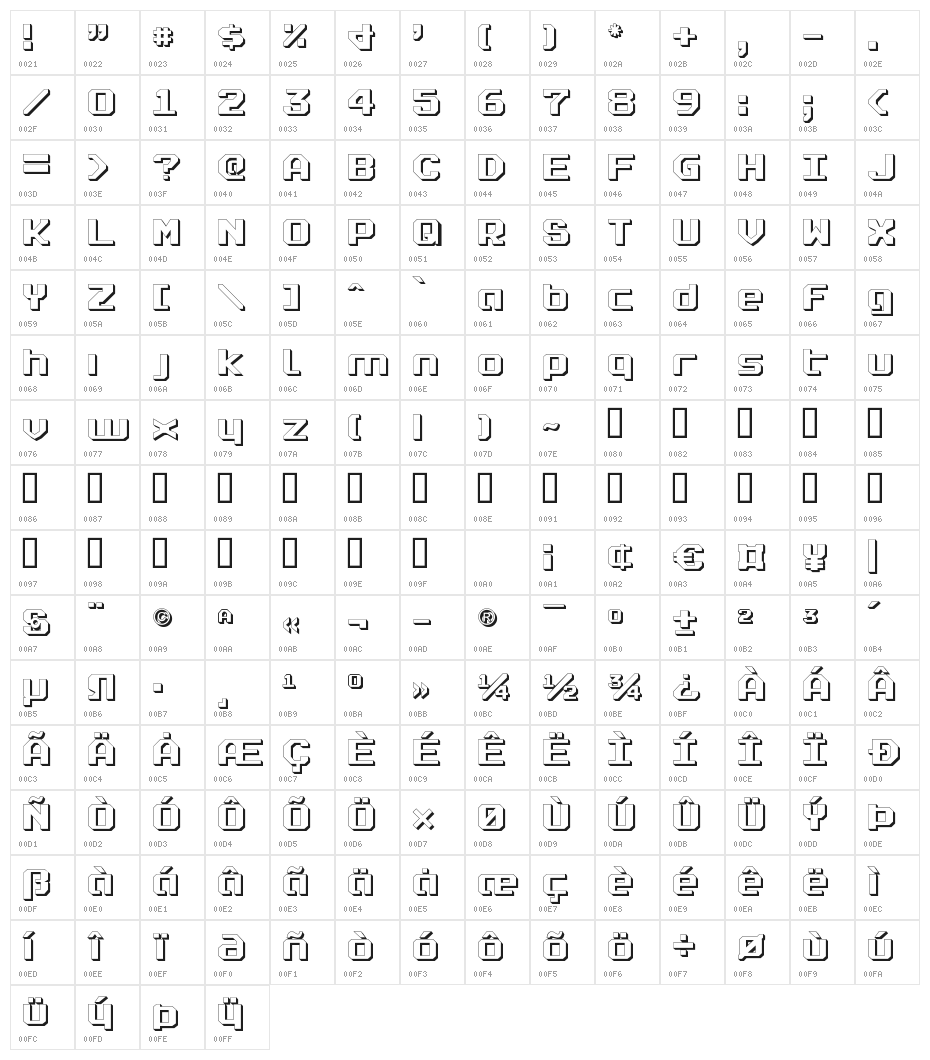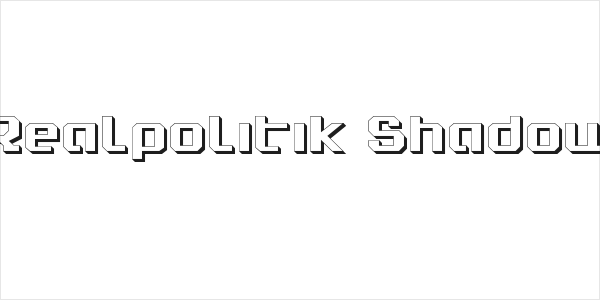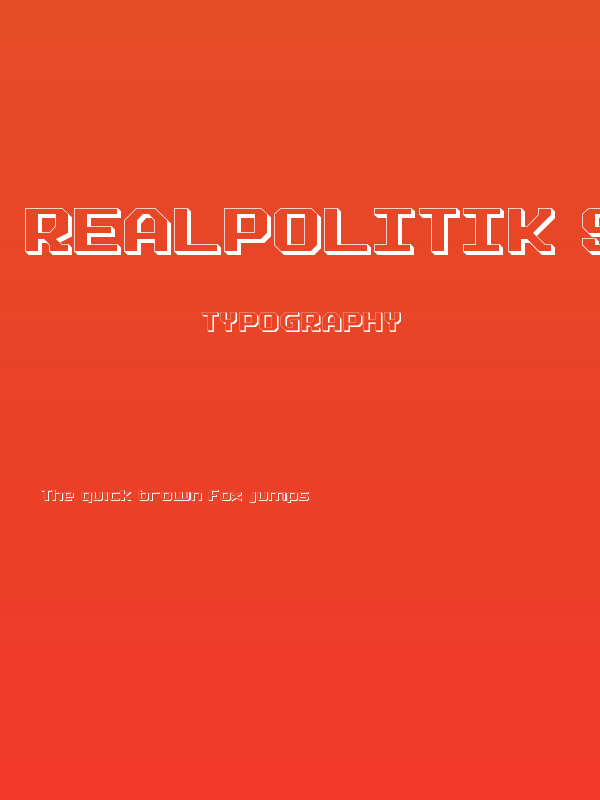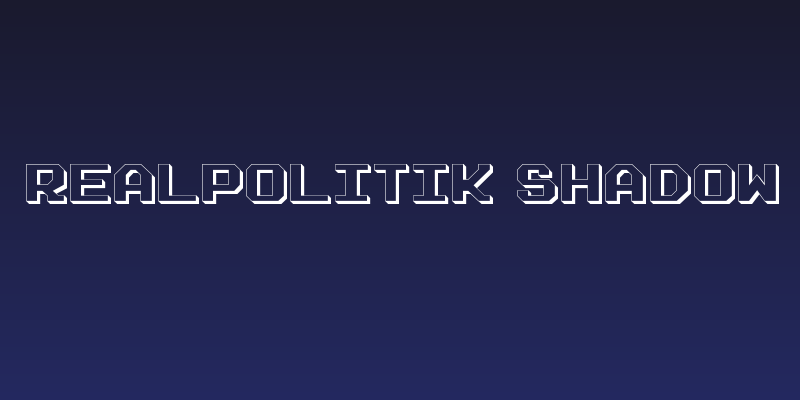
Realpolitik Shadow Font
Realpolitik Shadow Description
This font features a bold, geometric design with a distinct shadow effect that gives it a three-dimensional appearance. The characters are constructed with sharp angles and straight lines, creating a modern and industrial feel. The uppercase and lowercase letters maintain a consistent style, with the shadow adding depth and emphasis. Numbers and special characters are designed to match the overall aesthetic, ensuring uniformity across all glyphs. The font's unique shadowing makes it stand out, making it ideal for eye-catching designs.